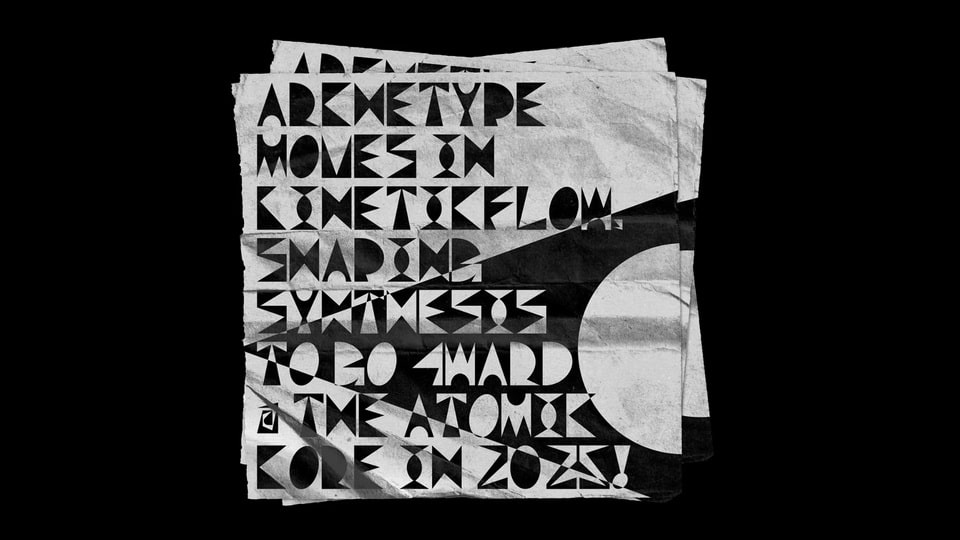
Download RamuRupa Std font, an experimental display typeface that explores the expressive potential of letterforms beyond traditional readability, inspired by modular construction and sharp geometric cuts.
Designer: Rizal Rajib